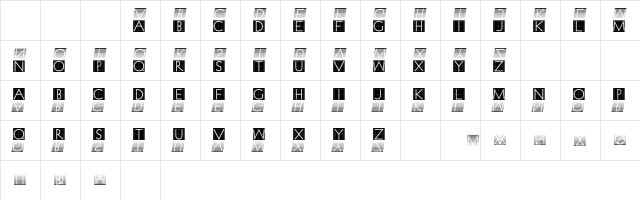
XperimentypoNr1 Oblique Font Preview
XperimentypoNr1 Oblique
XperimentypoNr1 Oblique Font Details
Design Context for XperimentypoNr1 Typeface
XperimentypoNr1 is a composed and adaptable typeface that performs quietly and consistently across a wide range of design contexts. The dynamic lean of this cut emphasises speed and emphasis in any layout.
Pro Tip: Use XperimentypoNr1 for emphasis, pull quotes, and subheadings where its slanted energy can add rhythm to the layout.